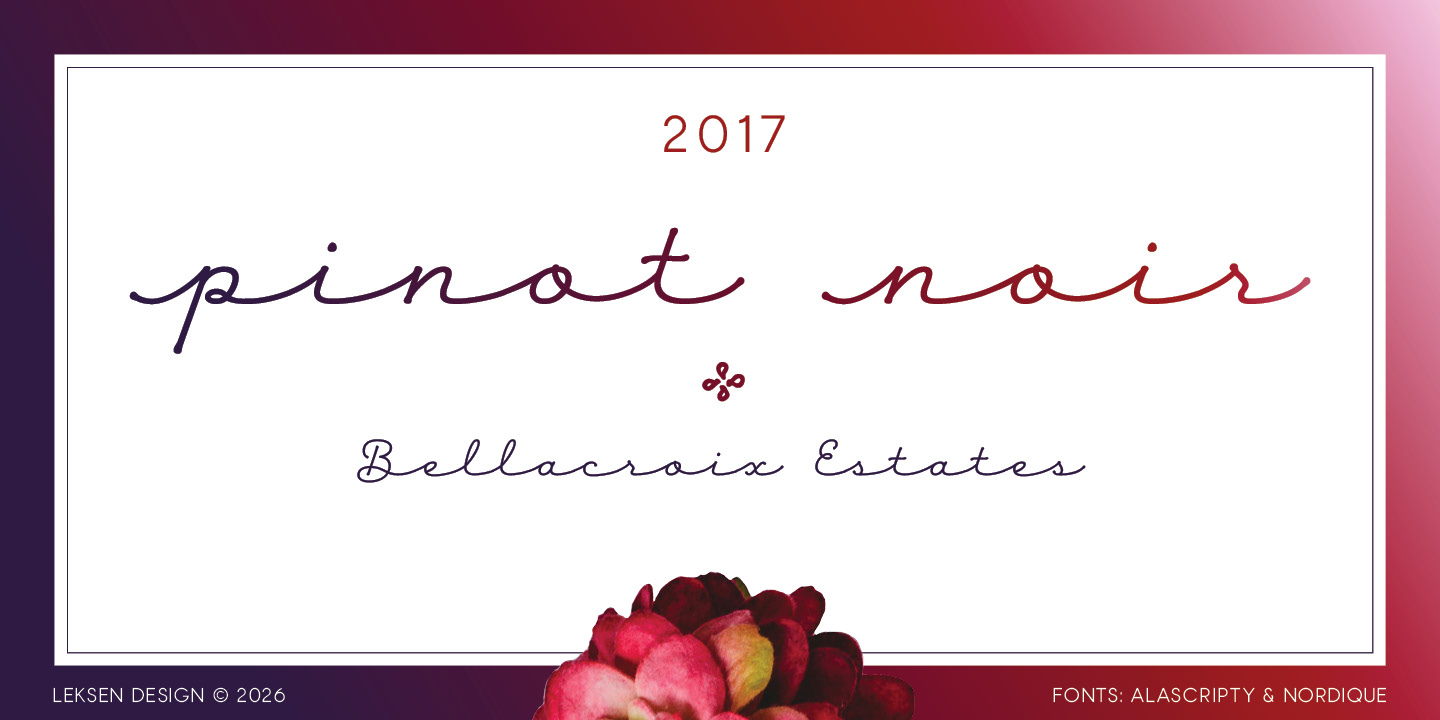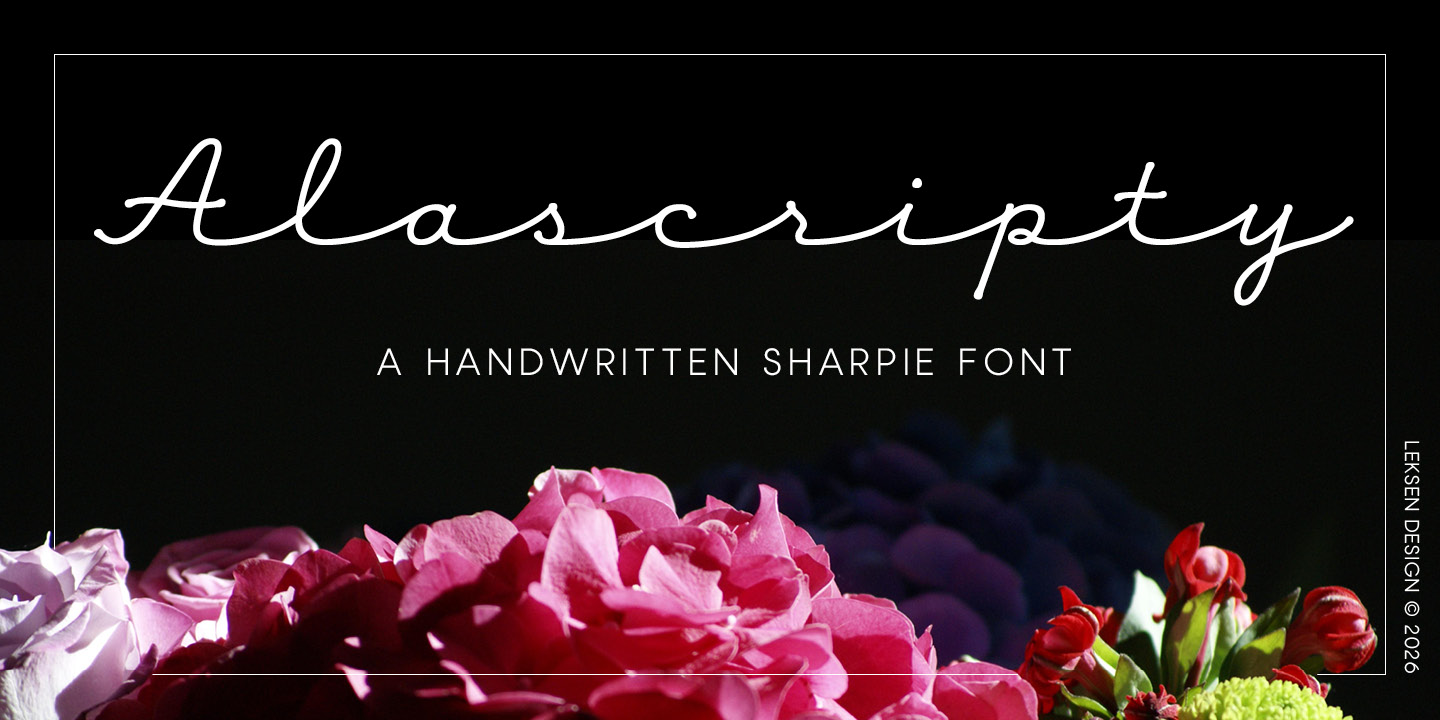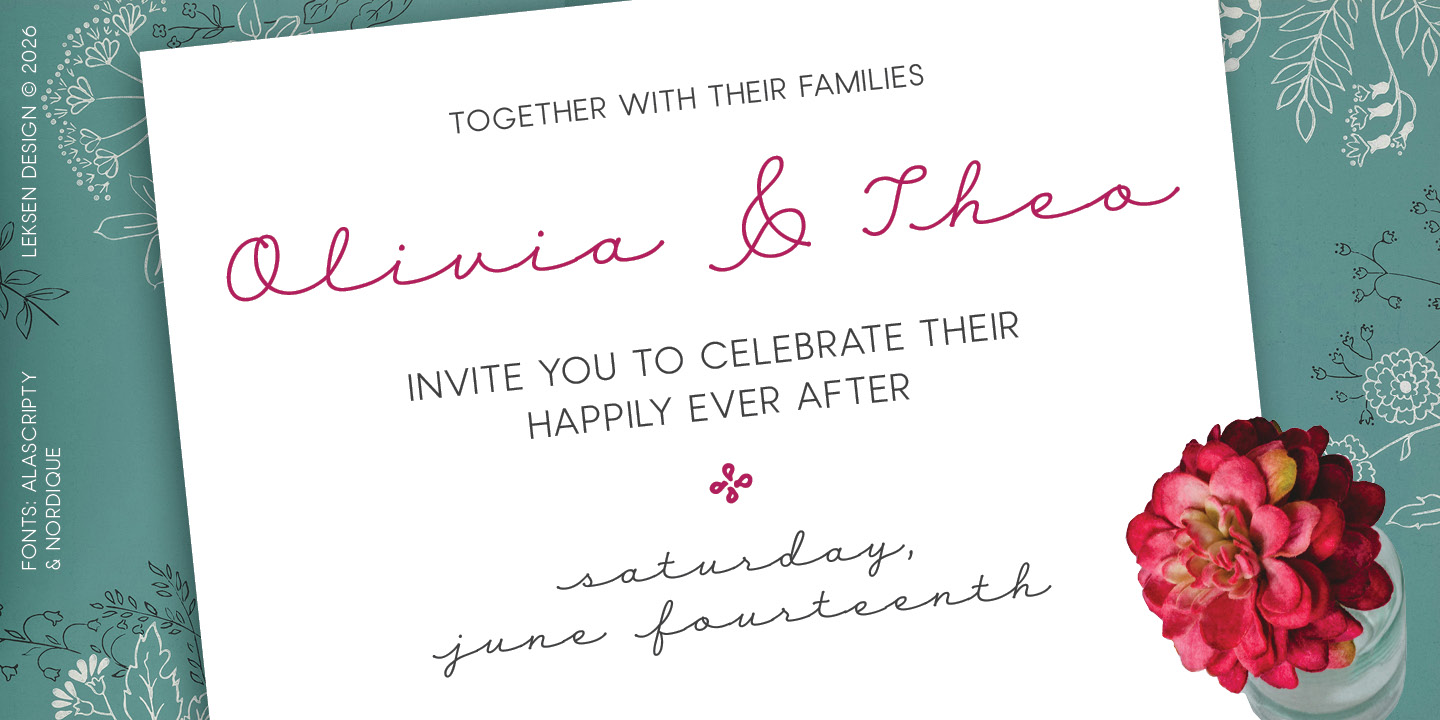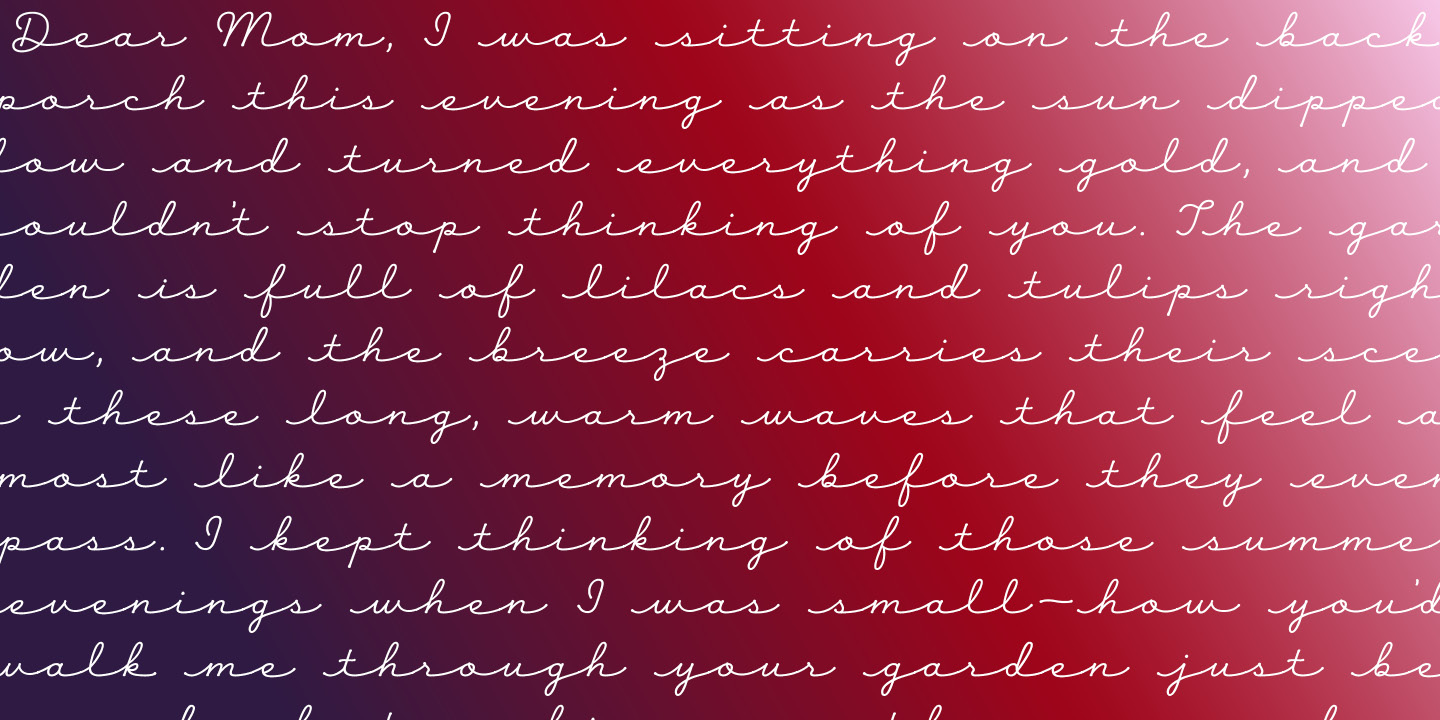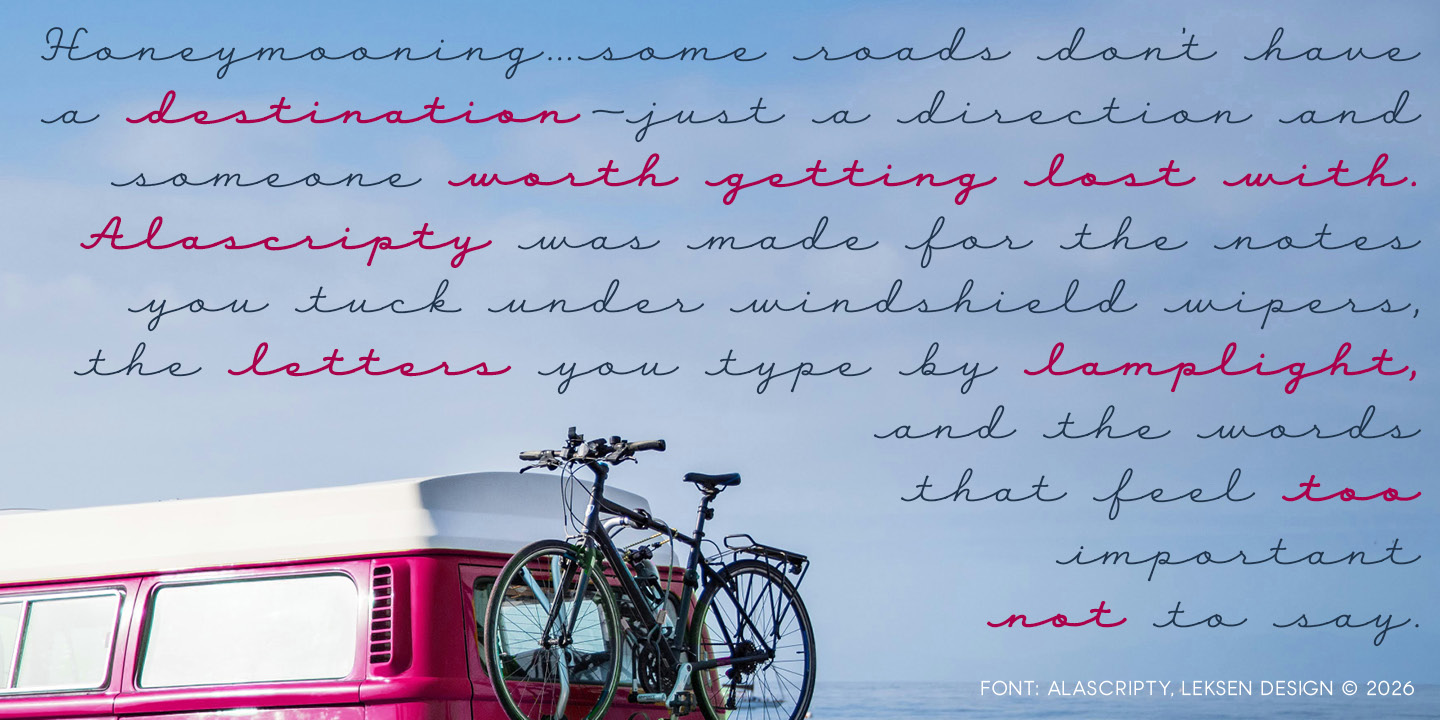
Alascripty is an informal handwritten script typeface that brings a warm, personal touch to any design. Drawn with a Sharpie pen, its fluid strokes and ink-ball terminals give it an authentic, marker-written feel that's both casual and expressive. The font includes uppercase and lowercase letters plus alternate characters with seamless initial and final connections — creating a natural, extended script that flows beautifully across a line. Alascripty is well-suited for wedding and event invitations, signage, headlines, brand identities, poster titles, and personal letters. It pairs well with Alasassy for a cohesive feel, or with Nordique for a modern, professional contrast. Available in Regular and Bold weights.